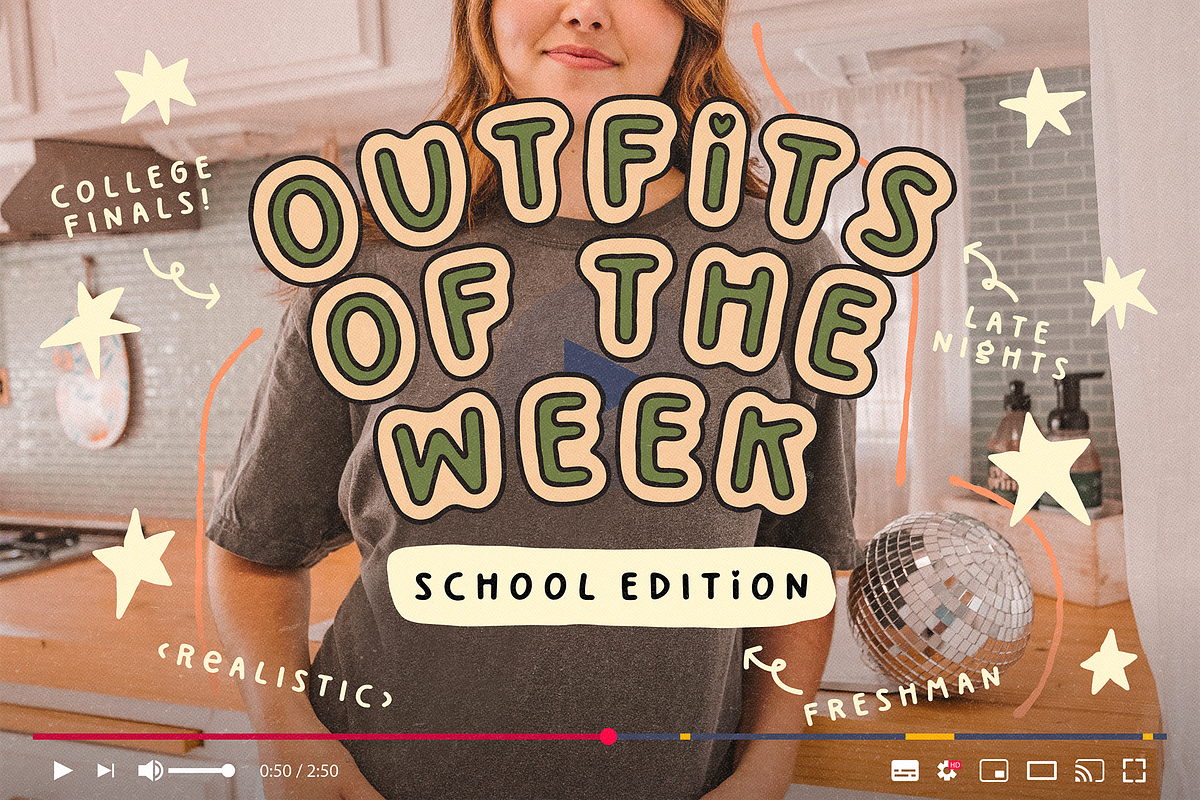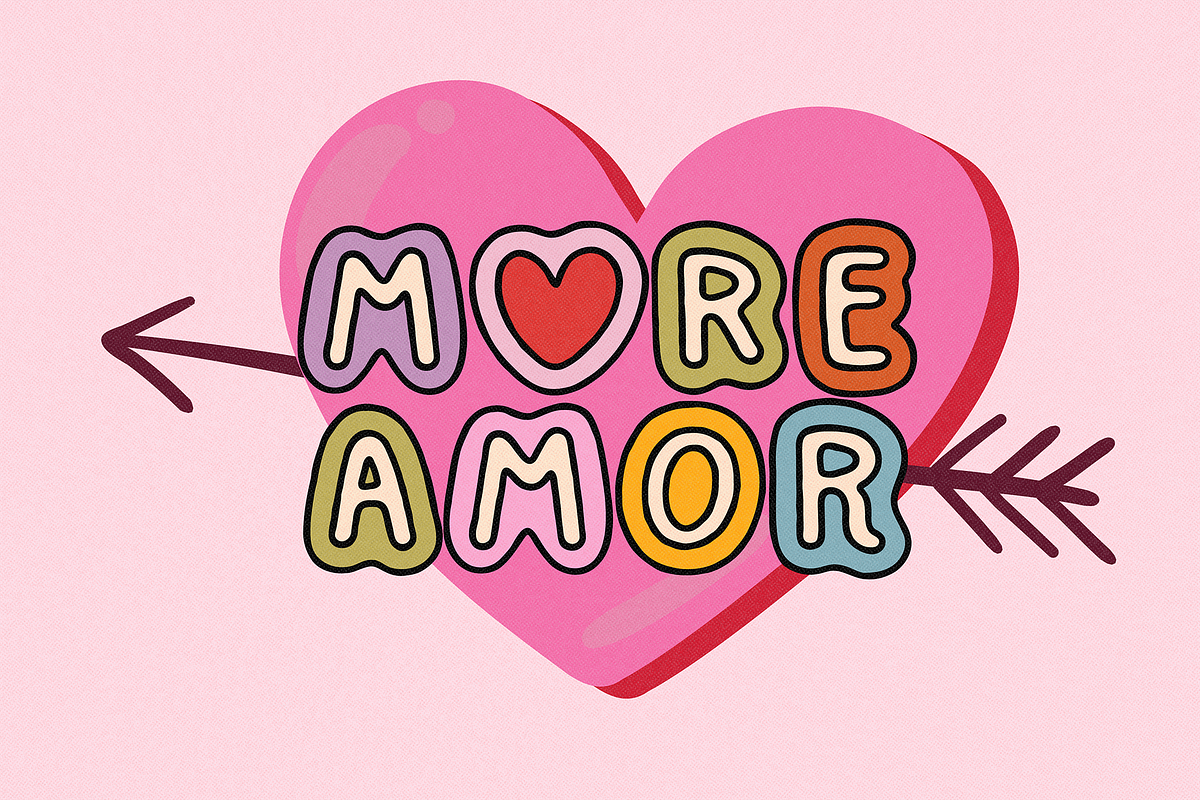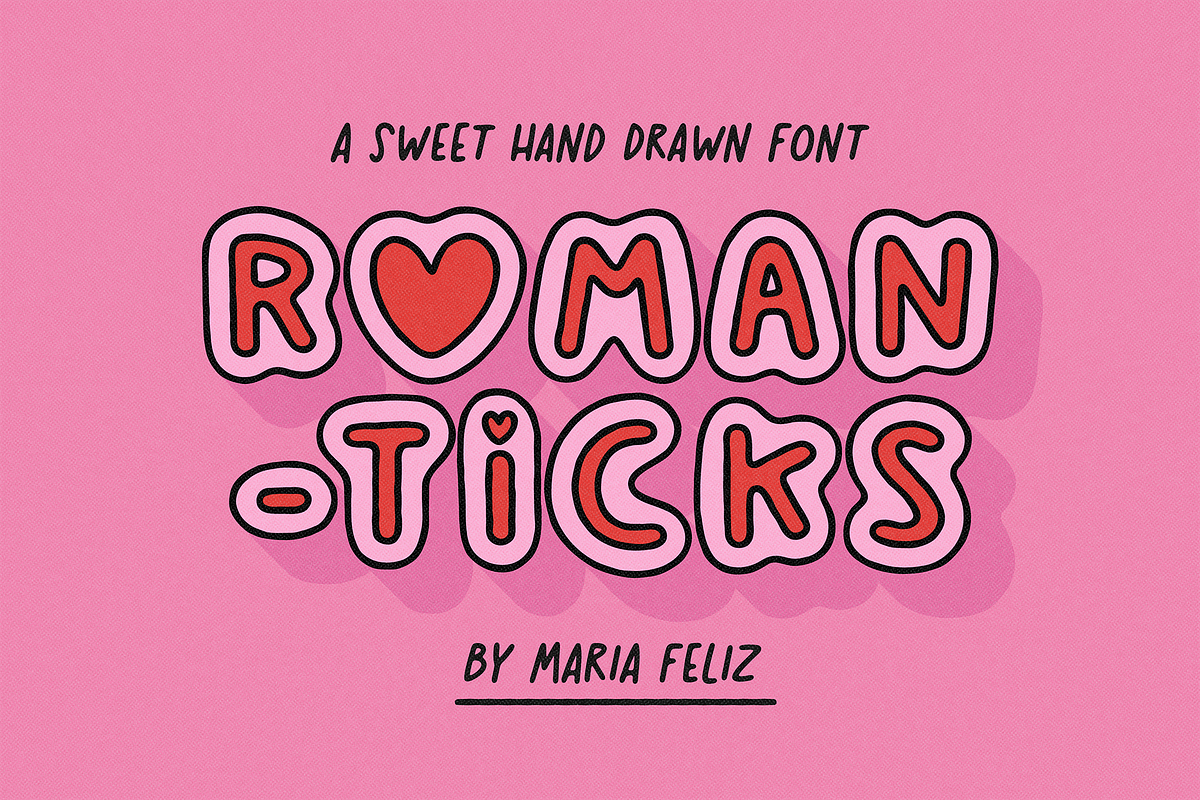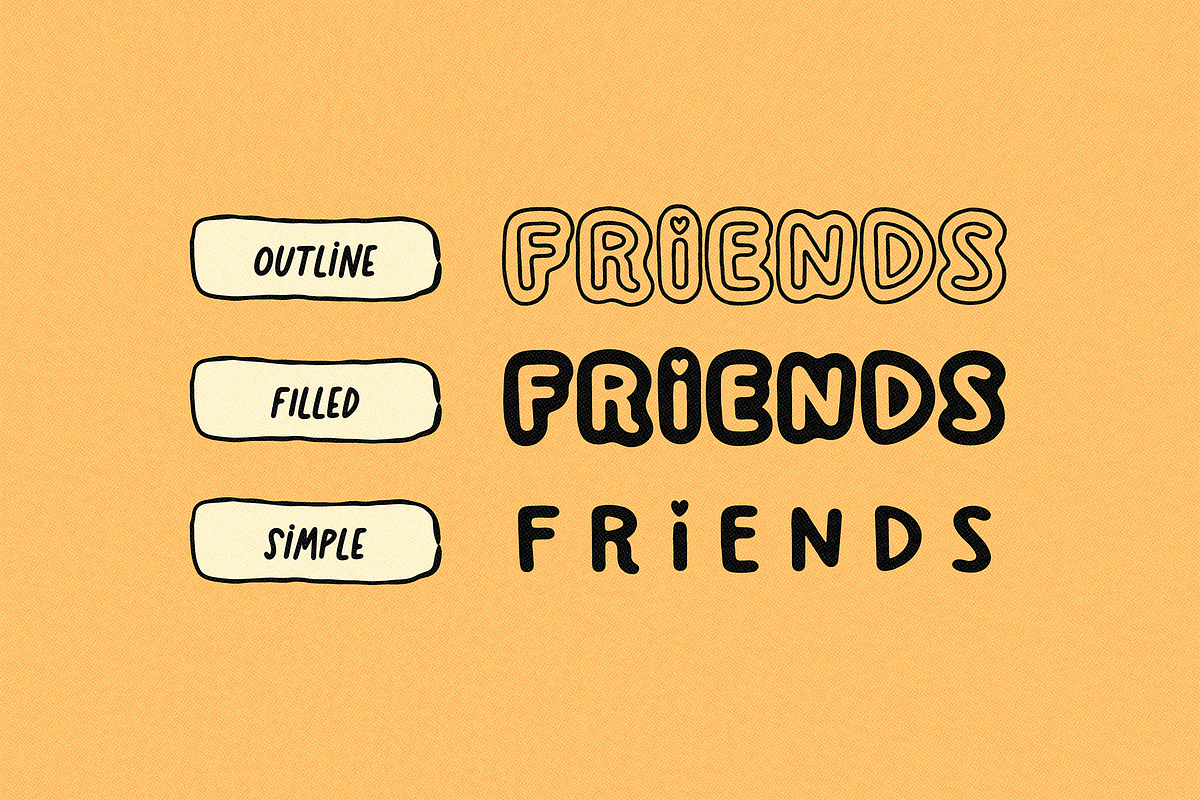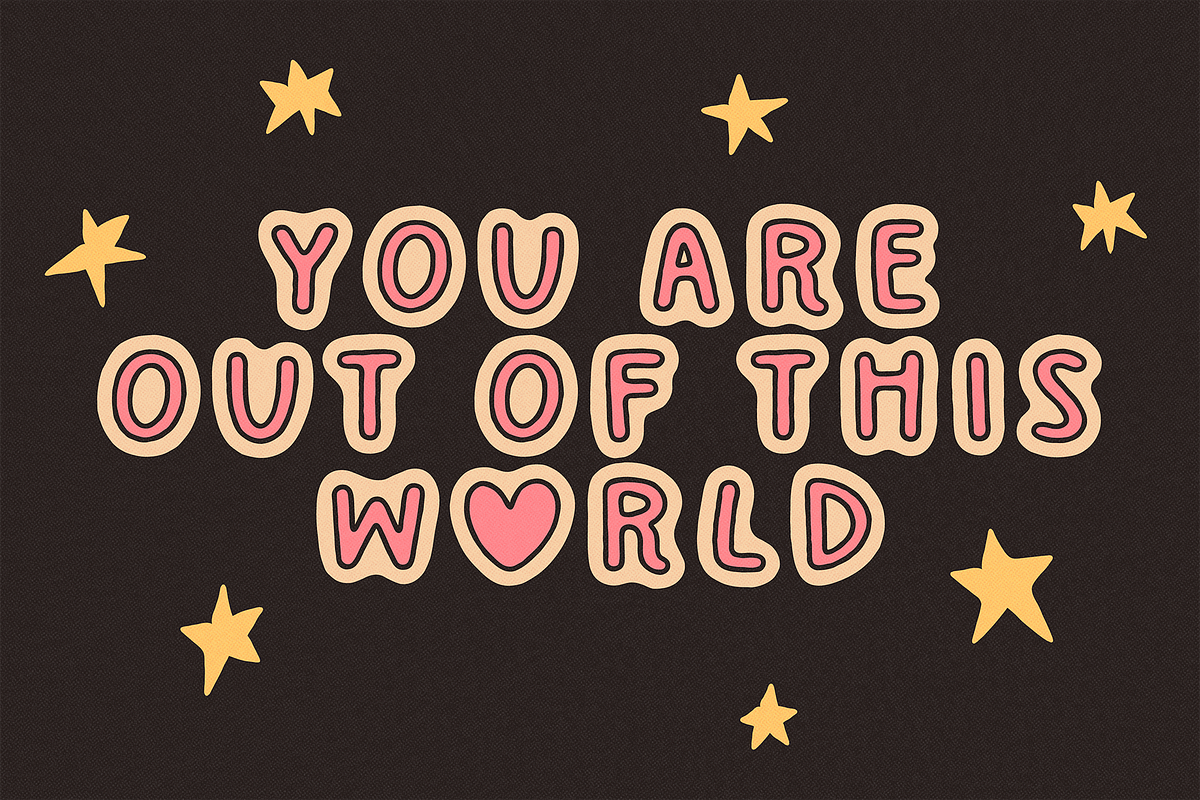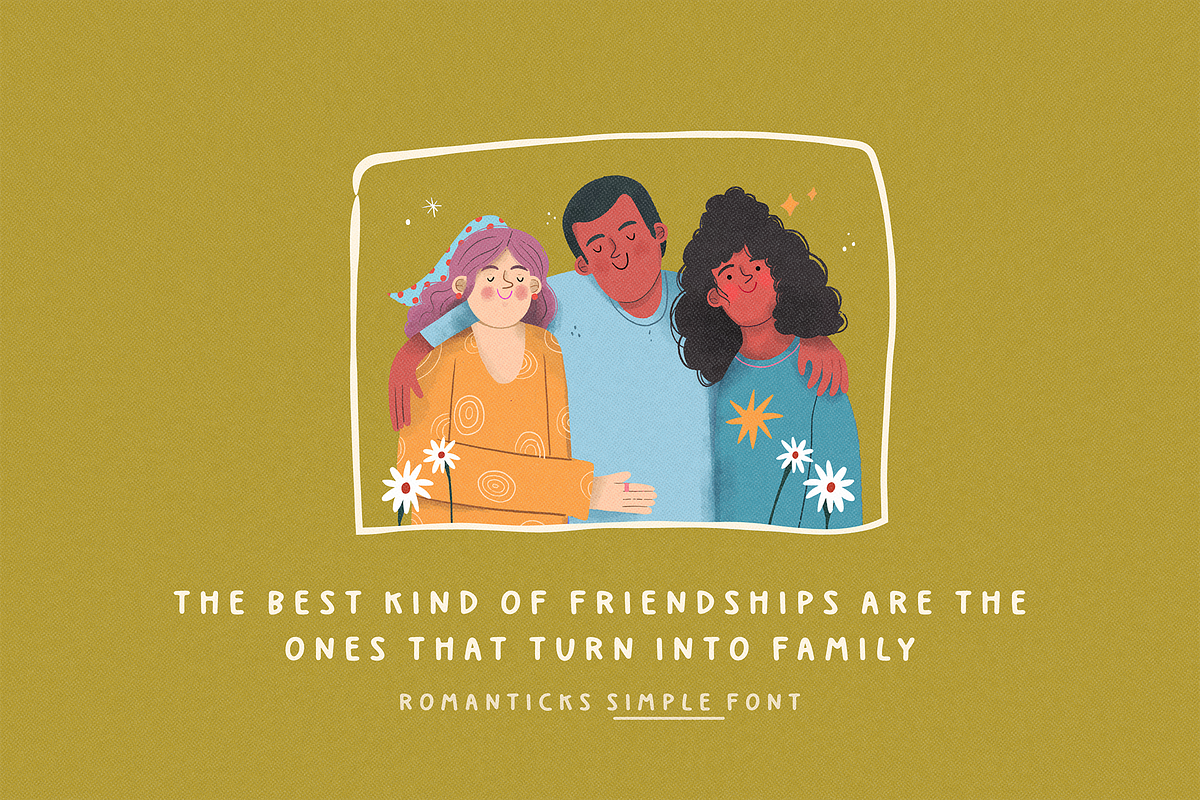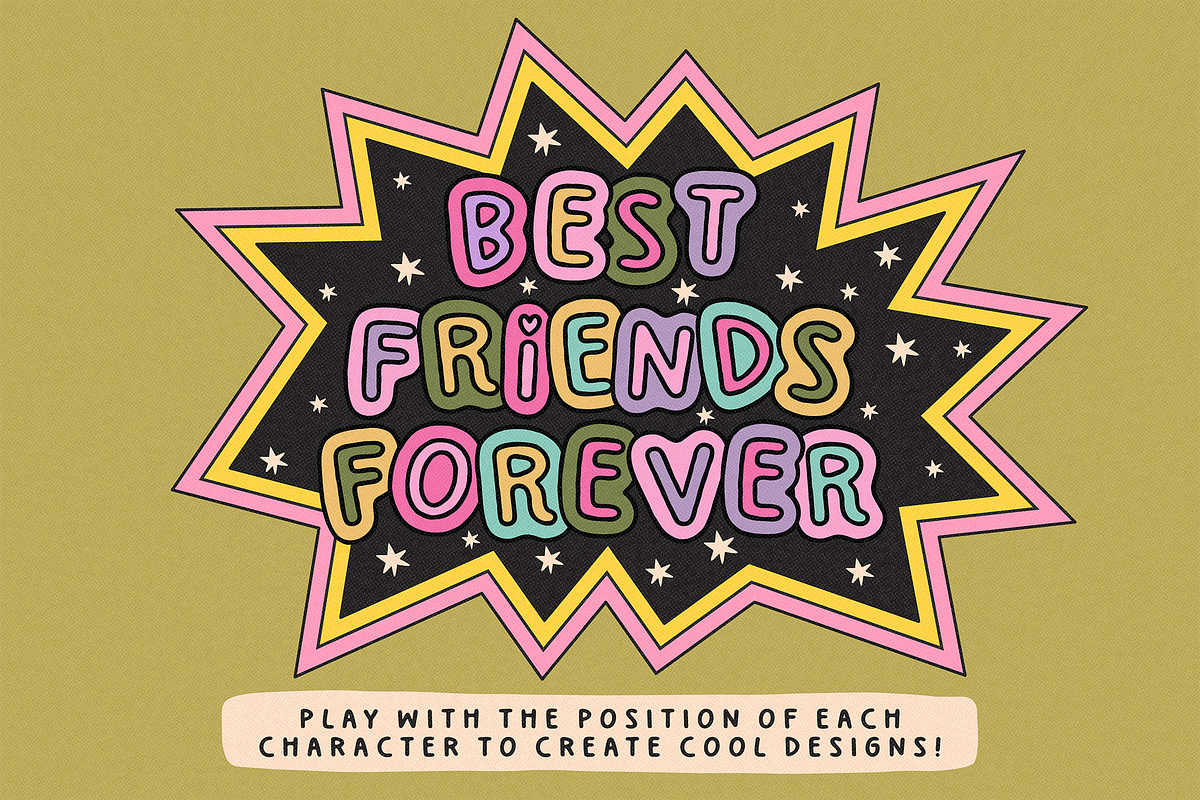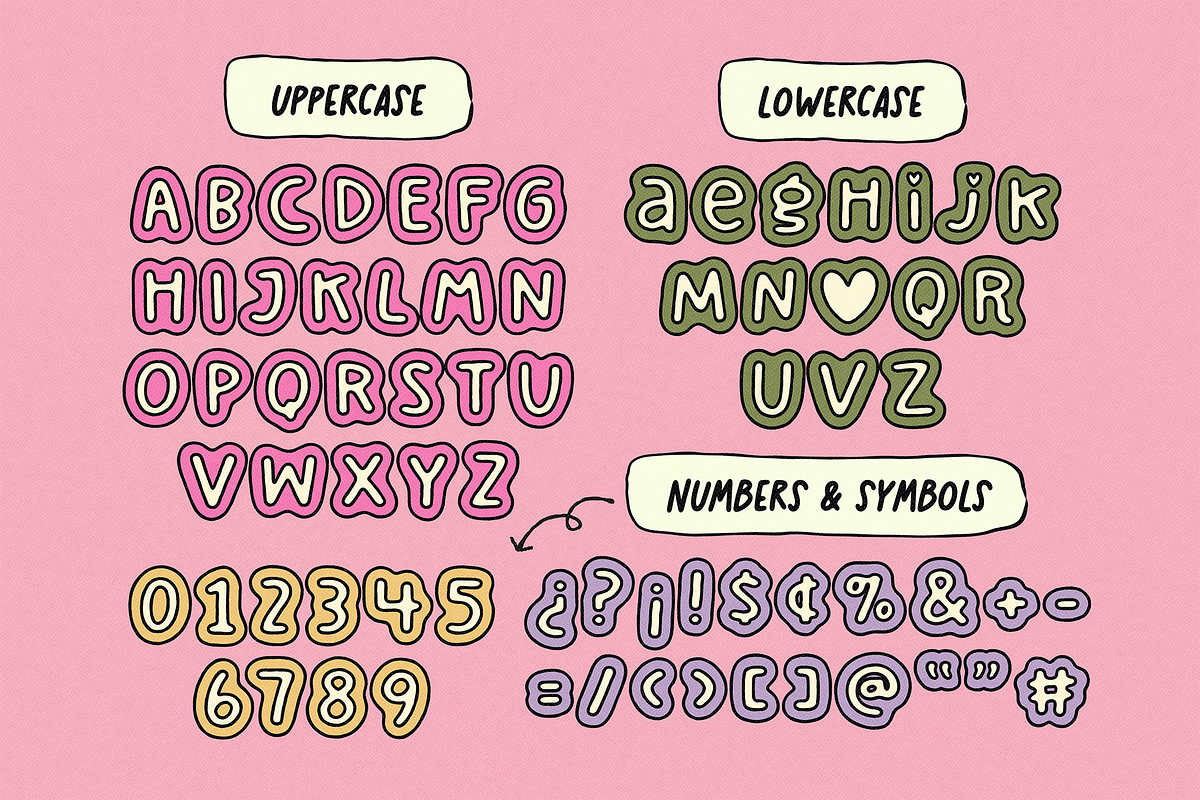
ROMANTICKS | BUBBLY AND SWEET FONT
ROMANTICKS – A Sweet Handwritten Font with Heart Details
ROMANTICKS is a lovely hand drawn font designed to add a charming touch to your creative projects. With its cute heart details, it's perfect for Valentine’s Day, love notes, social media graphics, planners, stickers, and more. Its versatility allows you to create cool designs for any special occasion.
✷ Features:
- Comes in three styles: outline, filled, and simple.
- The simple version can be used on its own and, poof... create even more!
- Perfect for social media, branding, and DIY projects.
- Includes some lowercase alternates for a unique look.
✷ To replace the period (.) with a heart symbol, type the vertical bar symbol (|)
Add a romantic and playful touch to your designs with ROMANTICKS!